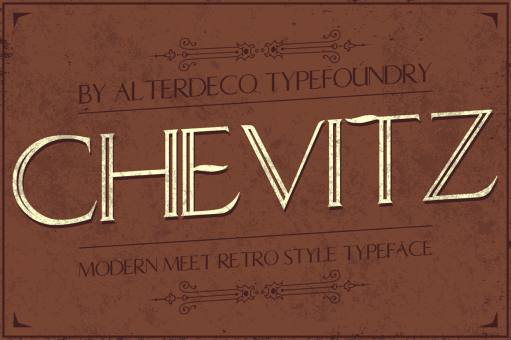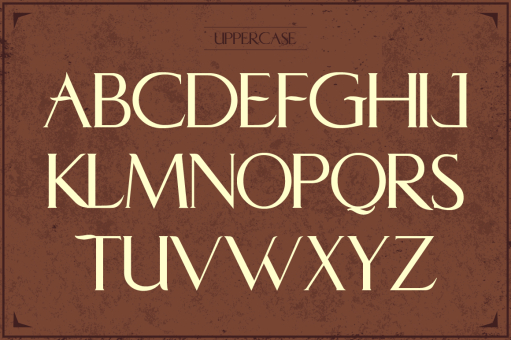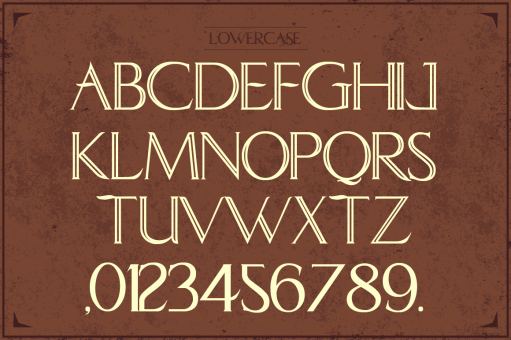
Chevitz typeface
Chevitz typeface, it's a modern meet retro style typeface, wich is great to create a logotype, headlines, or any other design works.